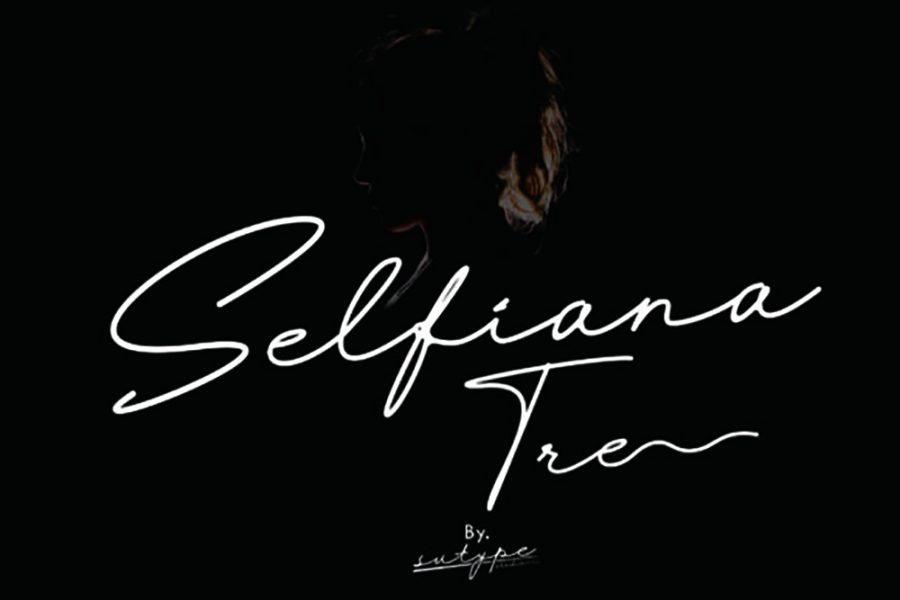
Selfiana Tre Script Font is a modern script font, it looks elegant and stylish font that makes you more confidence to create designs for your clients. Selfiana Tre Script Font can be useful on your design projects such as invitation wedding, business card, flyer, menu and more. However, It is a demo font for you, but, you can be useful on any commercial projects. If you want more features of this font, you can check the full version on the button below.
Selfiana Tre Script Font
Selfiana Tre Script Font is a modern script font, it looks elegant and stylish font that makes you more confidence to create designs for your clients. Selfiana Tre Script Font can be useful on your design projects such as invitation wedding, business card, flyer, menu and more. However, It is a demo font for you, but, you can be useful on any commercial projects. If you want more features of this font, you can check the full version on the button below.